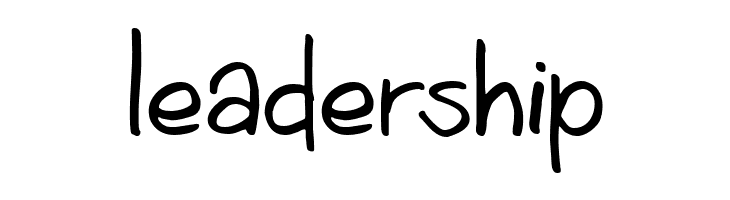
• Aint Nothing Fancy
• AintNothingFancy
A playful, casual handwritten font with smooth, rounded edges.
A bold, playful font with rounded, bubbly characters and a whimsical style.
• Airacobra
A bold, geometric font with strong, angular lines and a modern, industrial style.
• Airacobra Alt